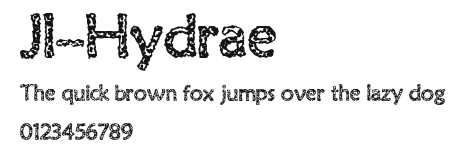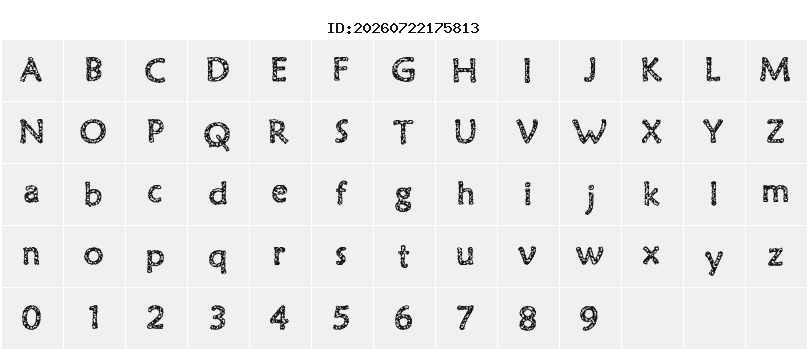
• Font Name: JI-Hydrae
• Full Font Name: JI-Hydrae
• PostScript Name: JI-Hydrae
• Designer: JupiterImages
About JI-Hydrae.ttf
JI-Hydrae.ttf is a modern, elegant sans-serif font designed for ultimate readability and visual harmony. Perfect for branding, headlines, web design, and print materials.